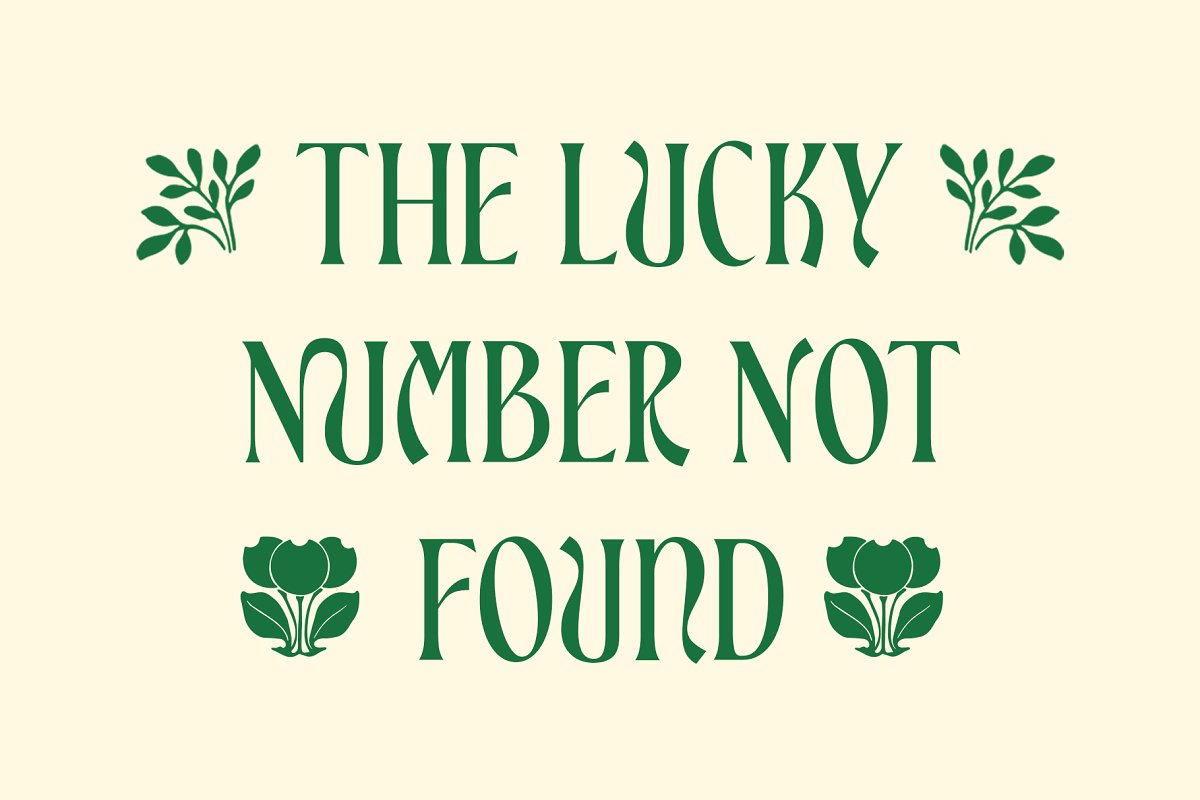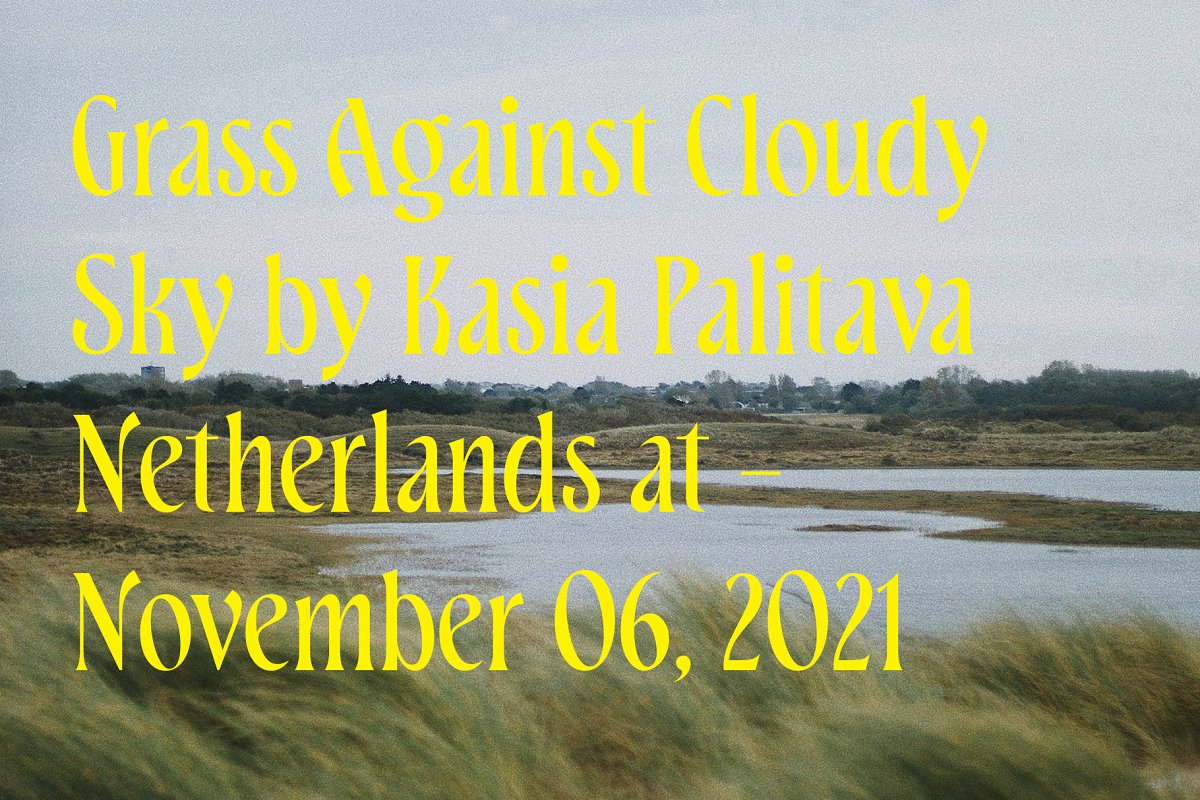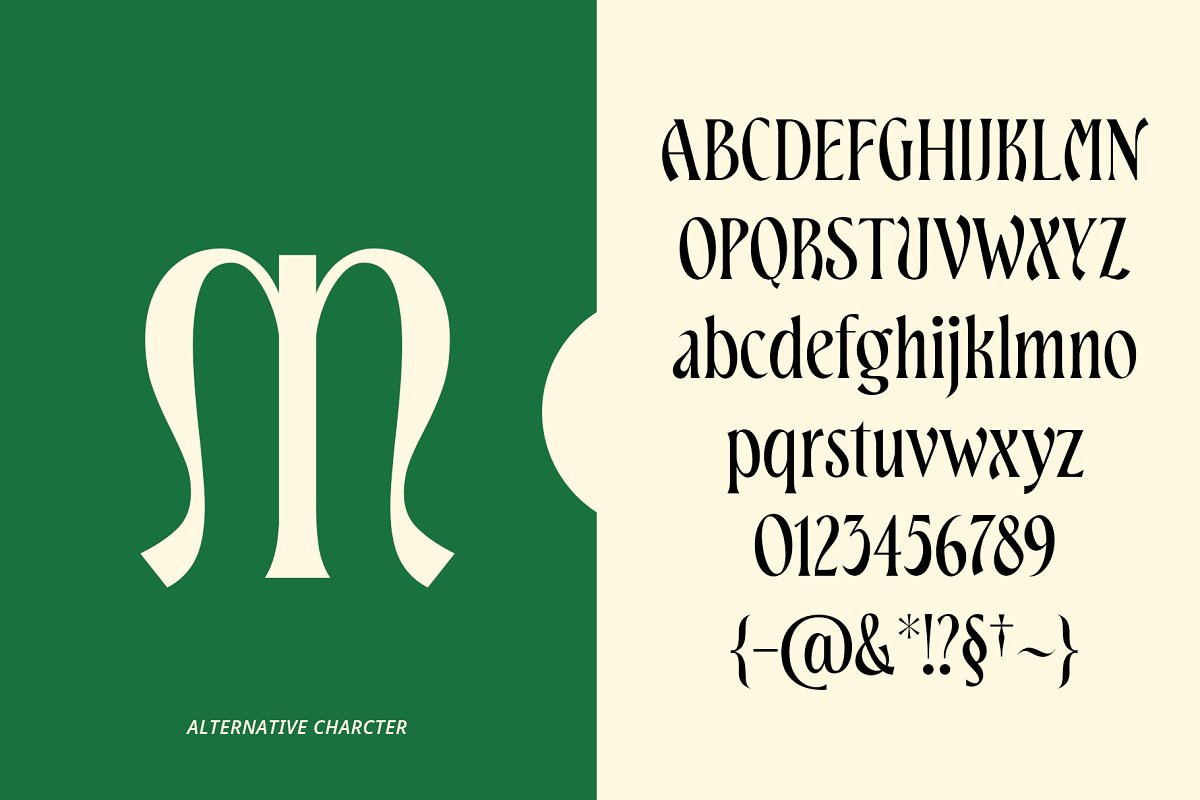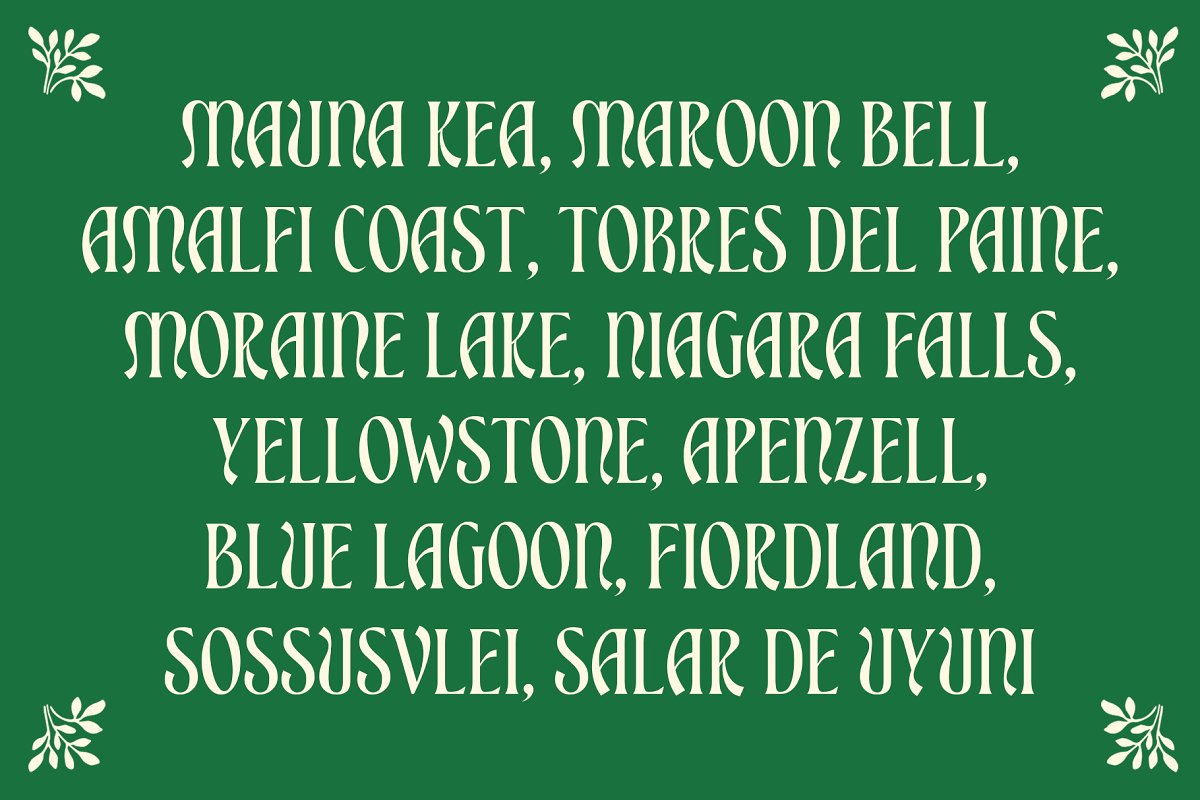
About the ED Bienova Display Serif Font
Bienova is a elegant and classy display serif typeface, inspired by Lombardic letters combined with a serif style to make it look modern and more beautiful, Bienova is equipped with extraordinary alternative characters and ligatures to make writing more beautiful, and this font is also equipped with multilingual support to make your work easier, This font is perfect for your design needs such as poster design, logo design, branding, social media design, book, magazine, etc